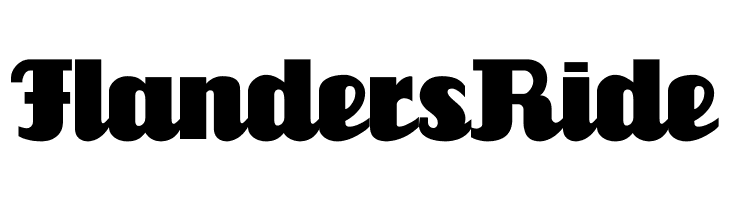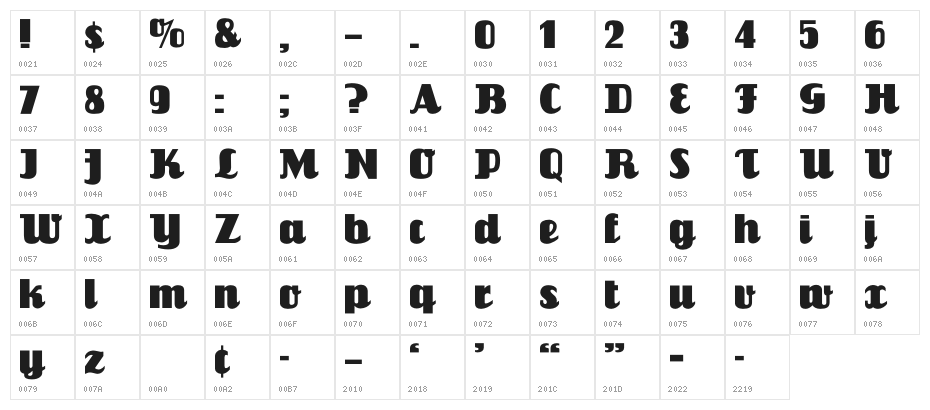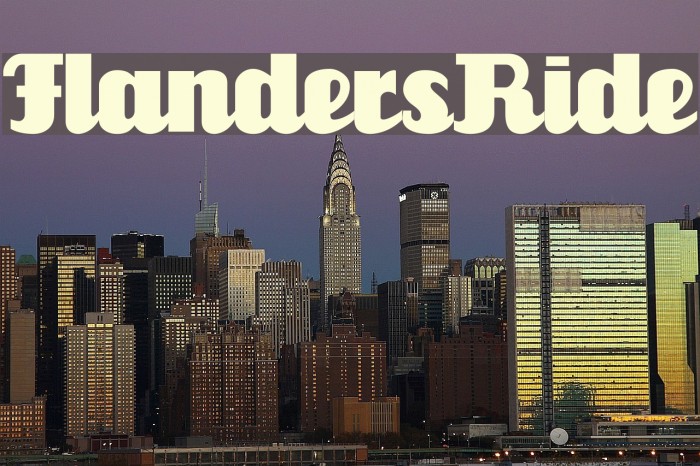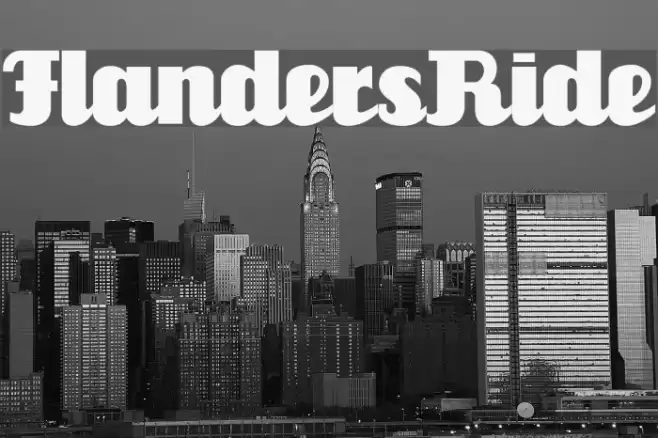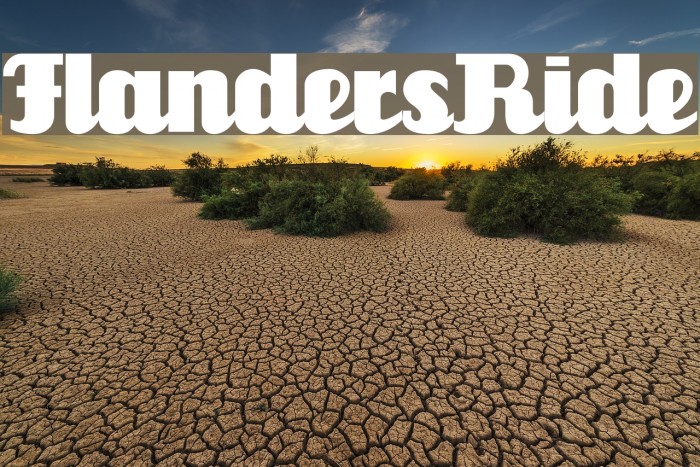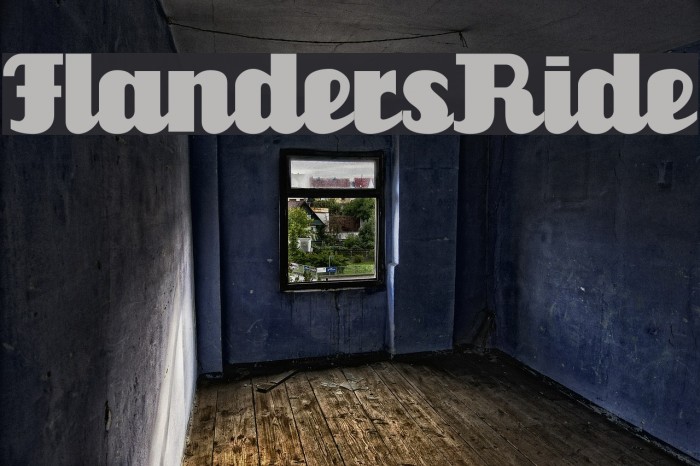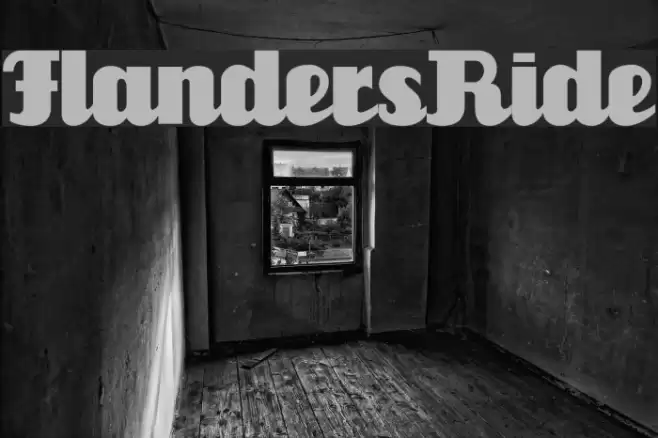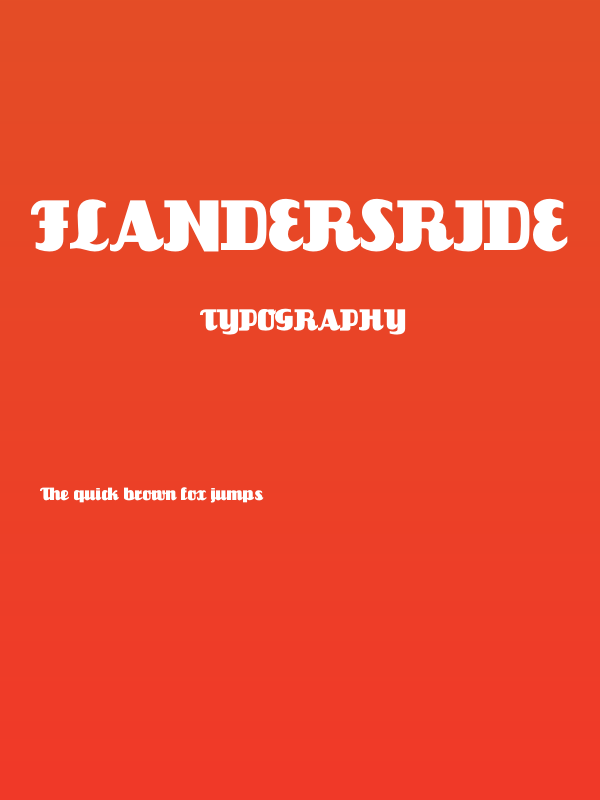
FlandersRide Font
FlandersRide Description
This font features a bold and striking design with a strong presence. The characters are crafted with a high contrast between thick and thin strokes, giving it a dynamic and impactful appearance. The serifs are prominent and add a touch of elegance, while the overall style maintains a modern flair. The uppercase letters are particularly bold, making them ideal for headlines or titles. The lowercase letters complement the uppercase with a slightly softer touch, yet they retain the boldness that characterizes the font. The numerals are equally bold and consistent with the overall style, ensuring readability and visual appeal. Special characters are included, maintaining the same bold and distinctive style.
| Proposed Projects | Ideal for branding, advertising, poster design, and any project requiring a strong visual impact. |